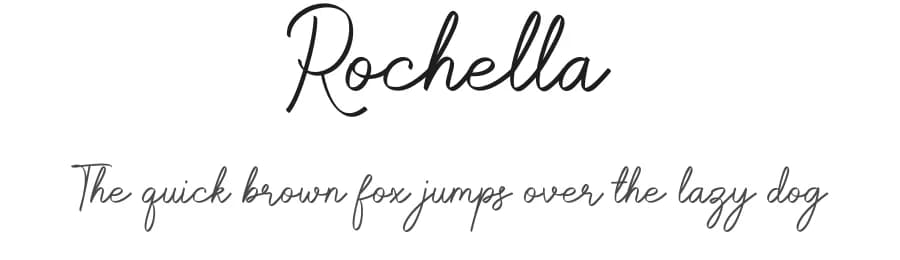
About Rochella Font
Rochella ships with 2 OpenType features you can switch on in apps that support them (Illustrator, InDesign, Affinity, Figma, CSS font-feature-settings).
Rochella supports 209 languages.
Rochella Font is a script font that shines as a display or heading face. Pair it with a clean sans-serif or serif font for body text β the contrast creates a clear hierarchy while the two styles stay balanced and easy to read.
Rochella Font